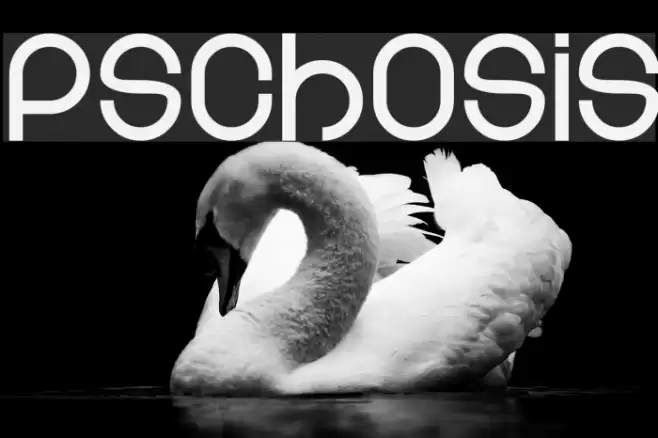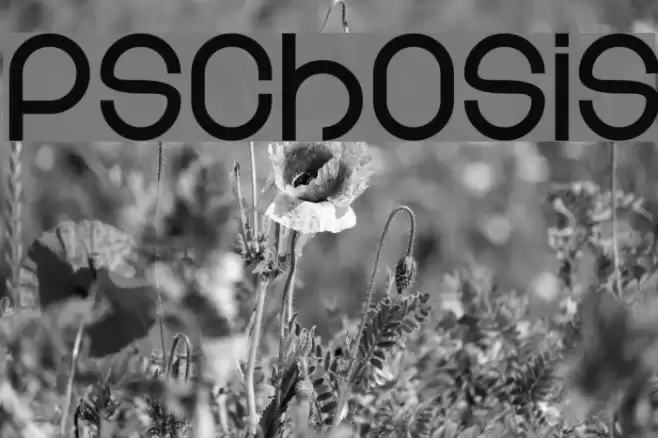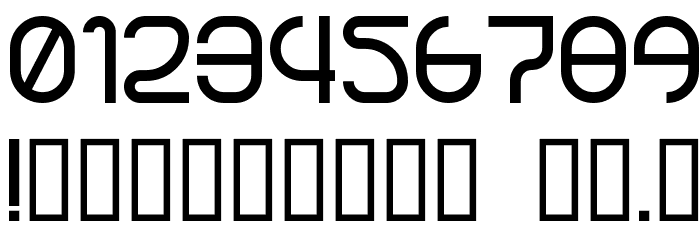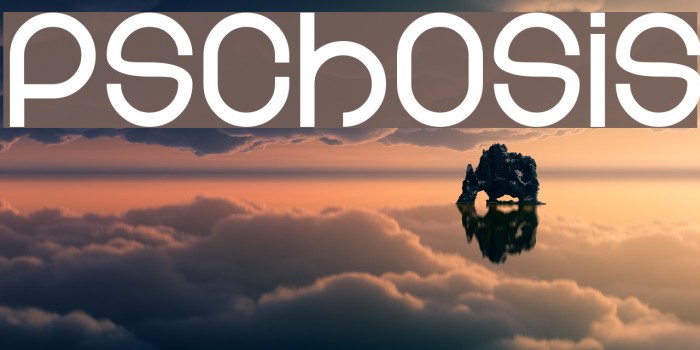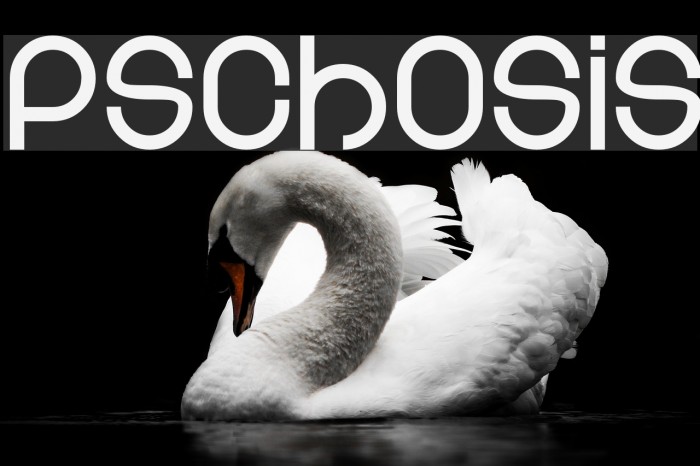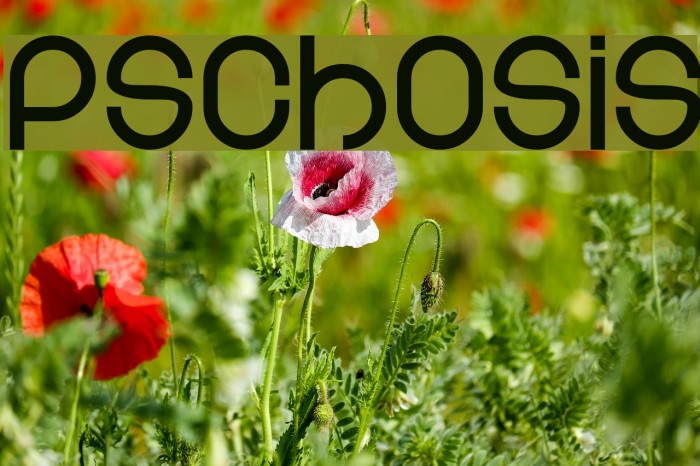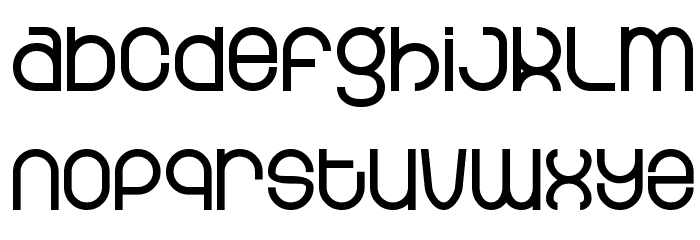
Psychosis Font
Psychosis Description
This font features a unique and modern design with a geometric and futuristic aesthetic. The characters are constructed with a combination of straight lines and curves, creating a sense of symmetry and balance. The uppercase letters have a bold presence, while the lowercase letters maintain a consistent style with slightly softer edges. Numbers and special characters are designed to match the overall theme, providing a cohesive look. The font's distinct style makes it suitable for creative and innovative projects, adding a contemporary touch to any design.
A modern, geometric font with a futuristic and symmetrical design from Futuristic fonts.
- Proposed Projects: Ideal for branding, technology-related designs, futuristic themes, and creative advertising.